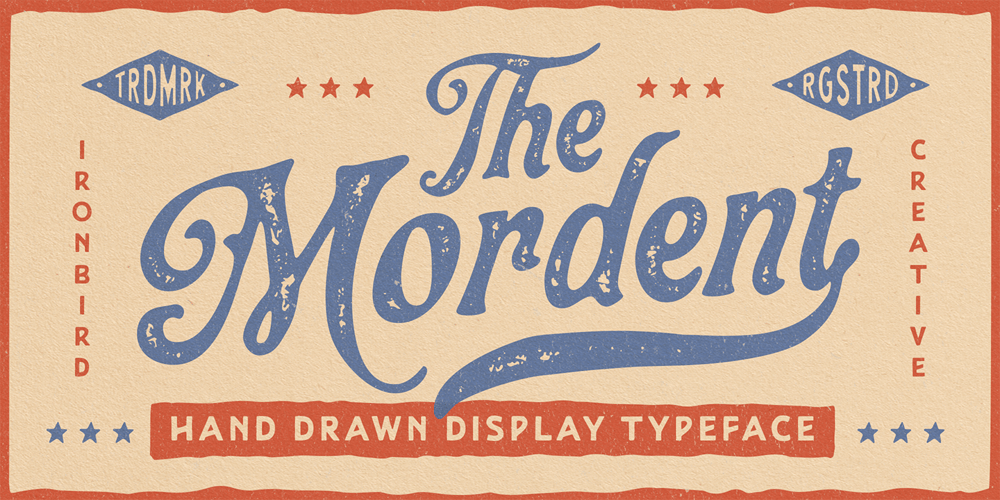
The Mordent Font Family was designed by Septianto Nugroho and published by Ironbird Creative. The Mordent contains 3 styles and family package options. The Mordent is a hand drawn display typeface with organic and vintage feel. Comes with regular, stamp and dingbats styles. Suitable for any graphic designs such as branding materials, t-shirt, print, logo, poster, t-shirt, quotes .etcWe hope you enjoy the font, please feel free to comment if you have any thoughts or feedback. Thanks for purchasing and have fun!Regards,Ironbird Creative